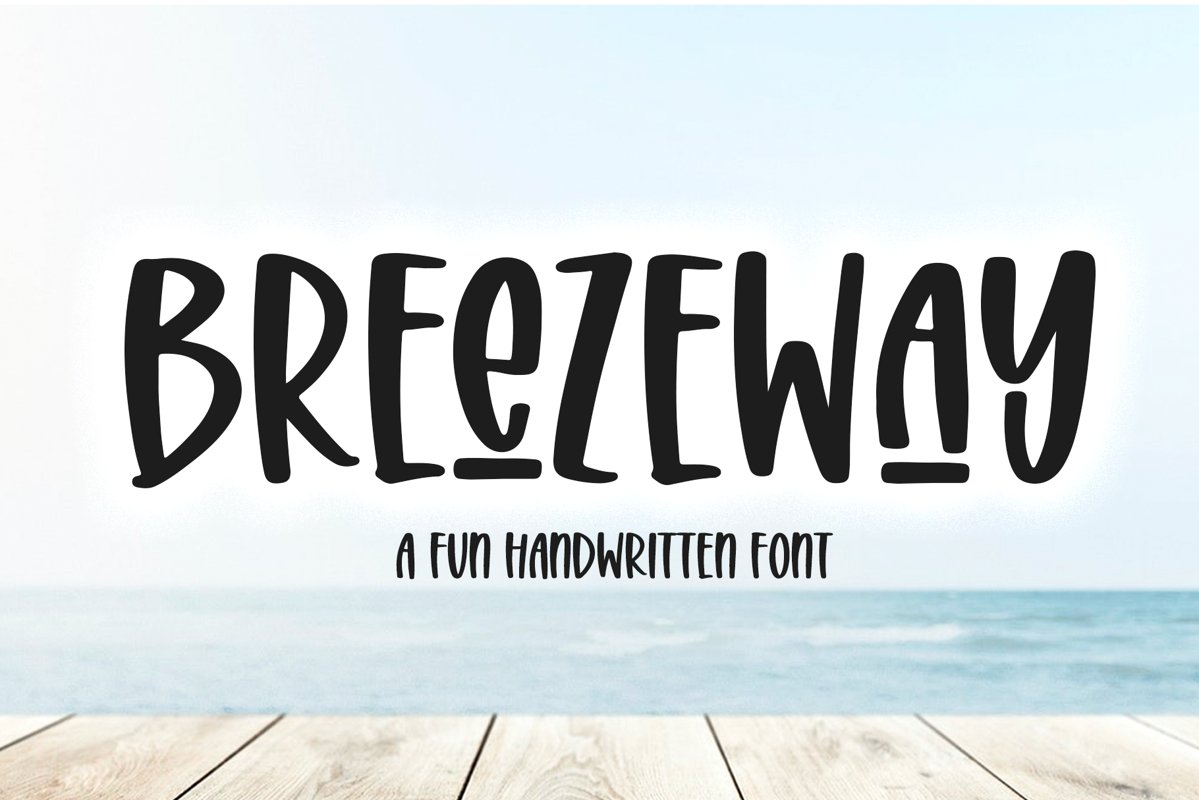
Breezeway is a fun and quirky handwritten font!
Includes alternates & glyphs for: a, e, o, u - ee, oo, ss
This font is perfect for quotes, shirt designs, websites, branding, children's designs, svg designs, blogs, logos, invitations and more!